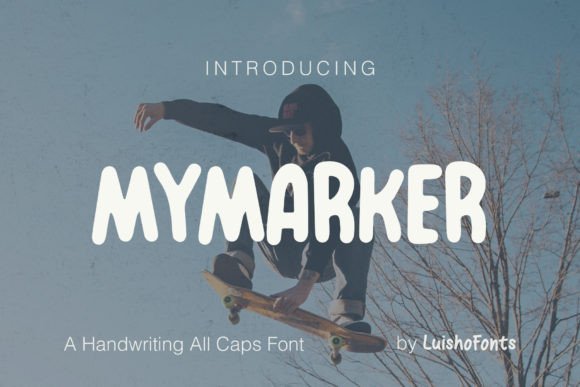
Looking for the perfect font to elevate your design game? Look no further than My Marker Font, the best font for SVG designs! Created by LuishoFonts, this fun and casual handwritten font is sure to bring a playful and friendly vibe to any project.
My Marker's minimalist and charming style is perfect for a wide variety of designs. Whether you're creating book covers, magazines, social media posts, or invitations, My Marker will add that special touch of personality that sets your work apart from the rest.
But My Marker isn't just a pretty face. This font is also incredibly versatile, able to adapt to a wide range of design styles and aesthetics. It's a great choice for anyone looking to inject a little fun and energy into their work.